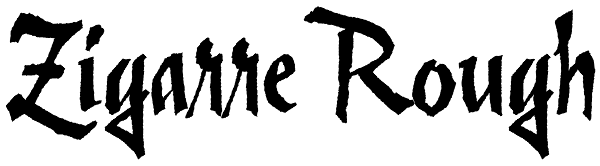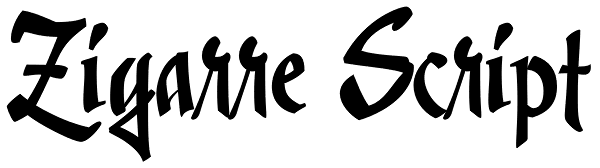
Zigarre
Though Zigarre can easily be categorized a brush script, Jim Rimmer actually drew it using a big marker. Jim’s original face, inspired by inter-war German poster lettering, was a rough one, with the marker’s juicy ink roughing it out all over the...
Zigarre Rough
Zigarre Script